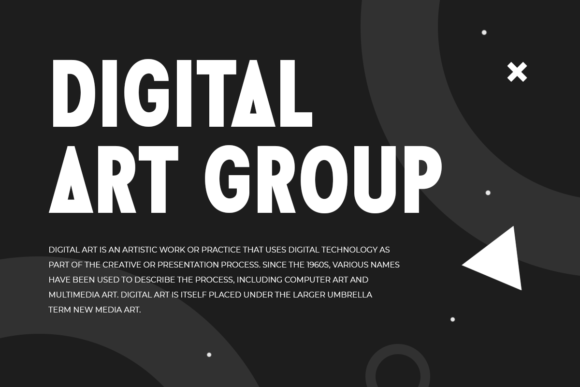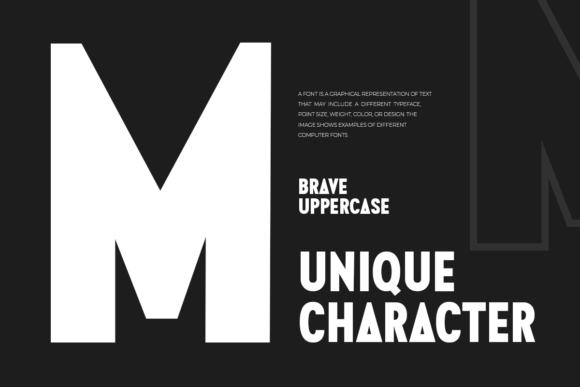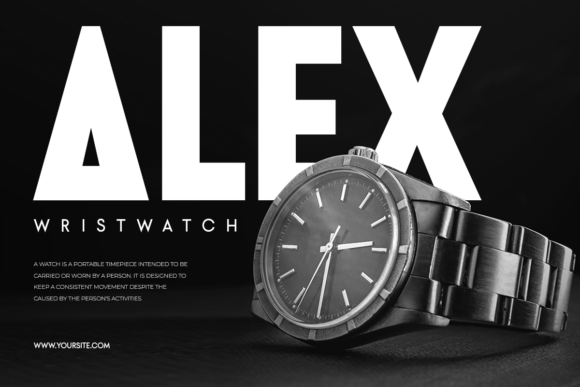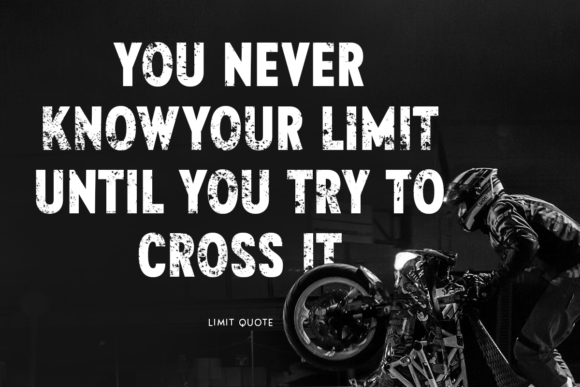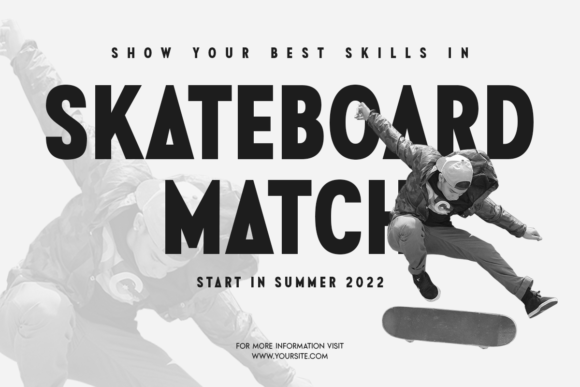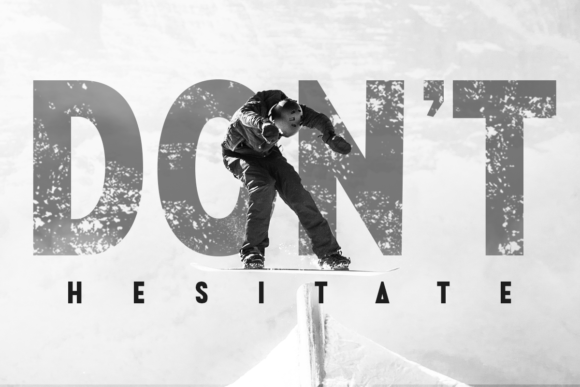
Brave Font: The Ultimate Modern Sports Font for Designers and Crafters
In the world of typography, fonts play a crucial role in conveying the tone and personality of a brand. For designers and crafters, finding the perfect font that embodies the spirit of their project can be a daunting task. That’s where Brave Font comes in – a modern sports font designed specifically for branding, titles, social media, logos, and more.
What is Brave Font?
Brave Font is a cutting-edge, high-performance font that exudes confidence, energy, and dynamism. Its sleek and modern design makes it perfect for sports-related projects, such as team logos, jerseys, and advertising campaigns. However, its versatility extends beyond sports, making it an excellent choice for various design applications, including branding, packaging, and digital media.
Key Features of Brave Font
- Modern and Bold Design: Brave Font boasts a contemporary, bold design that commands attention and evokes a sense of power and strength.
- Highly Versatile: With its clean and simple structure, Brave Font can be used for a wide range of applications, from logos and titles to social media graphics and advertisements.
- Easily Customizable: Brave Font is designed to be easily customized, allowing designers to tweak and adjust the font to suit their specific needs.
- Excellent Legibility: The font’s clear and concise design ensures excellent legibility, even at small sizes, making it perfect for use on various mediums.
Why Choose Brave Font?
With so many fonts available, why choose Brave Font? Here are a few compelling reasons:
- Unique and Distinctive: Brave Font’s modern design sets it apart from more traditional fonts, giving your project a unique and distinctive look.
- Time-Saving: With Brave Font, designers can save time and effort, as the font can be easily adapted to various design applications.
- Professional-Grade Quality: Brave Font is designed to meet the highest standards of typography, ensuring a professional-grade quality that will elevate your design.
How to Use Brave Font
Using Brave Font is straightforward and easy. Here are some tips to get you started:
- Pair it with Other Fonts: Brave Font pairs well with other fonts, allowing you to create stunning contrast and visual interest.
- Experiment with Colors: The font’s bold design makes it perfect for use with bright and bold colors, adding an extra layer of visual impact.
- Adjust and Customize: Don’t be afraid to experiment with the font’s customization options, adjusting the size, style, and spacing to suit your design.
| Font Name | Brave Font |
| Author | sensatype |
In conclusion, Brave Font is an exceptional modern sports font that offers designers and crafters a versatile and powerful tool for their creative projects. Its unique design, excellent legibility, and customization options make it an excellent choice for a wide range of applications. Whether you’re working on a sports-related project or simply looking for a bold and modern font, Brave Font is sure to deliver.